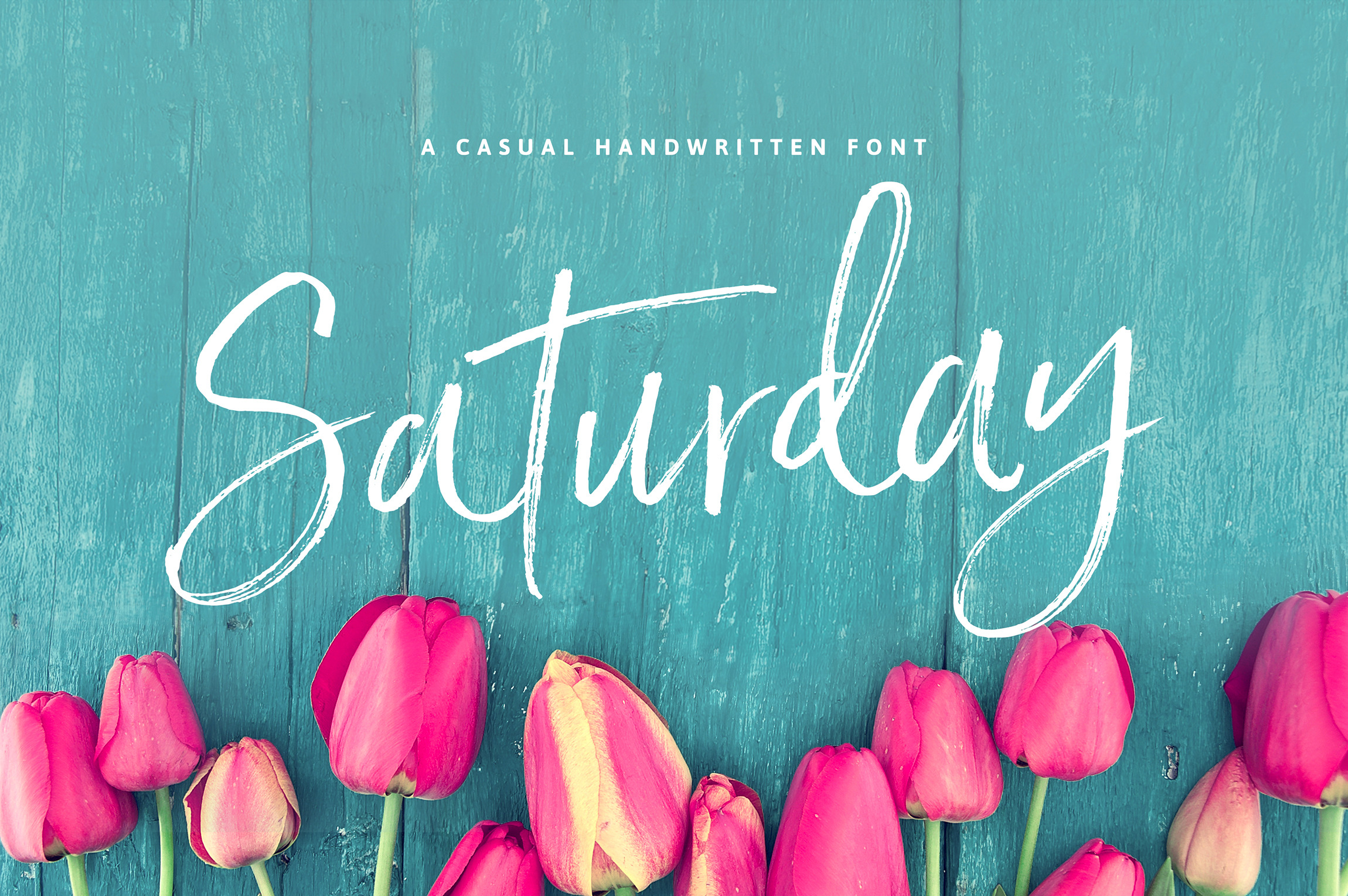
Saturday Script Brush Font
Say hello to Saturday Script! A a care-free, handwritten script with authentic tell-tale dry brush imperfections.
Saturday Script has the added bonus of having 'multiple personalities'! It has 2 sets of extra alternate lowercase letters, which allow you to create different feels for different projects. Whether you need "flaunty & loud" or "soft & romantic" theres a letter combination to get the look you want :)
EXTRA ALTERNATE LETTERS: To make your designs look even more naturally handwritten, Saturday Script has 2 extra sets of alternate lowercase letters ,allowing you to make each word look completely unique to the next!